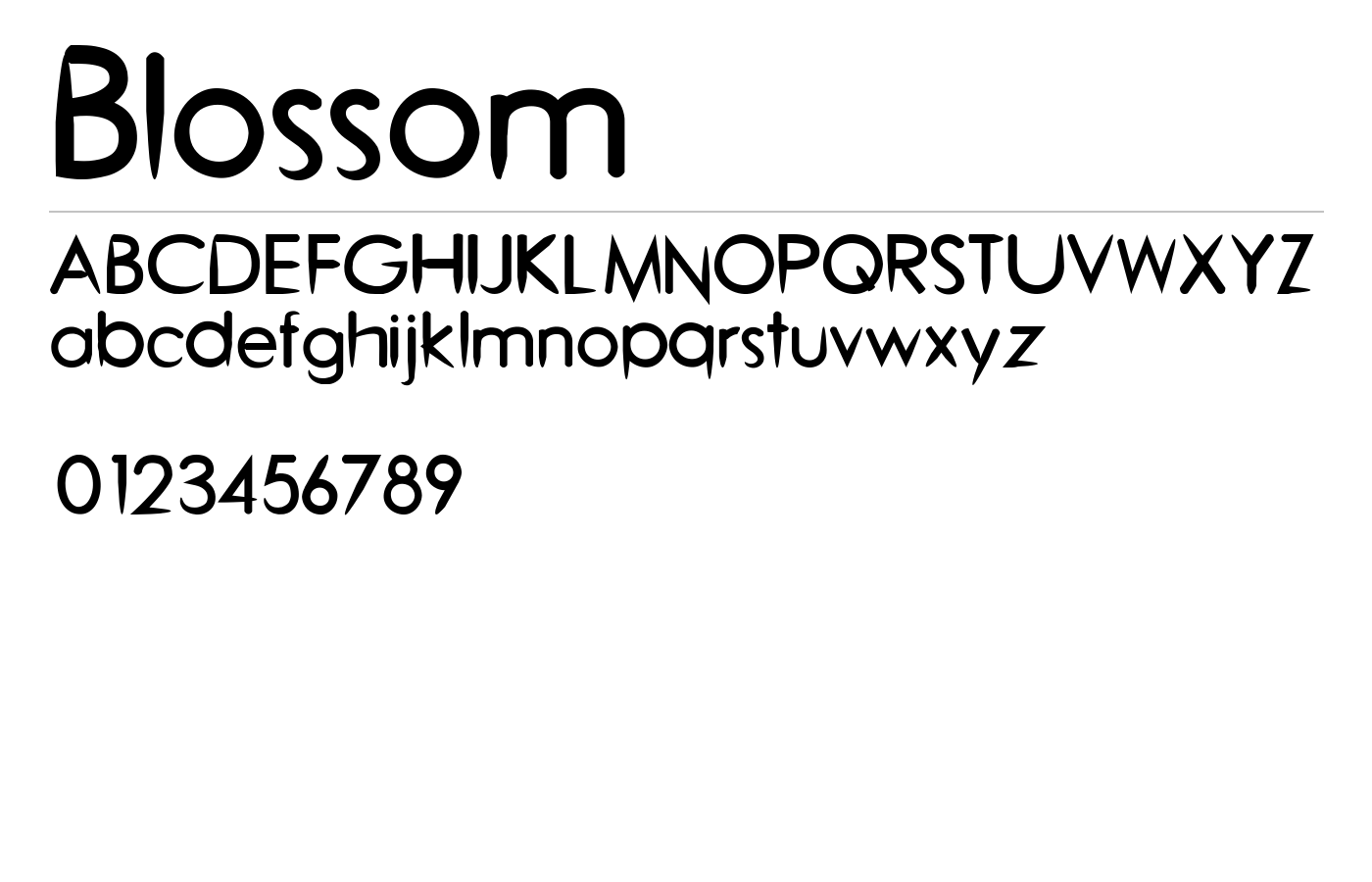
Blossom is a playful and friendly sans serif font with smooth, rounded edges and a slightly quirky character style. Its moderate weight and balanced proportions make it versatile for creative headlines, children's content, and casual branding where a warm and approachable tone is desired. This font’s unique letterforms bring a charming, handcrafted feel that works well in informal, fun designs.
Blossom Font
About Blossom Font